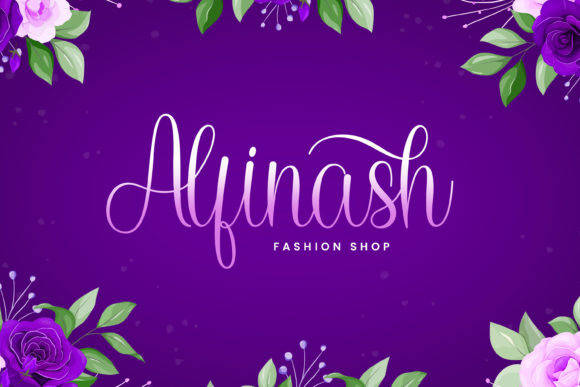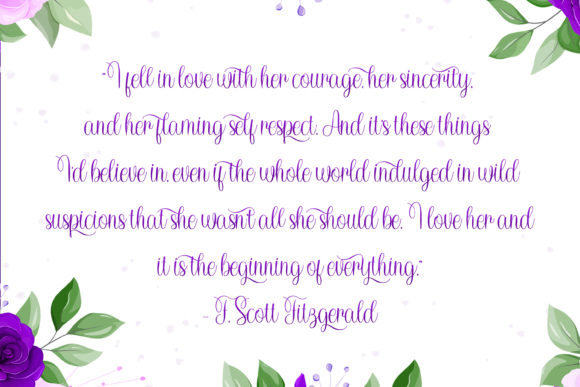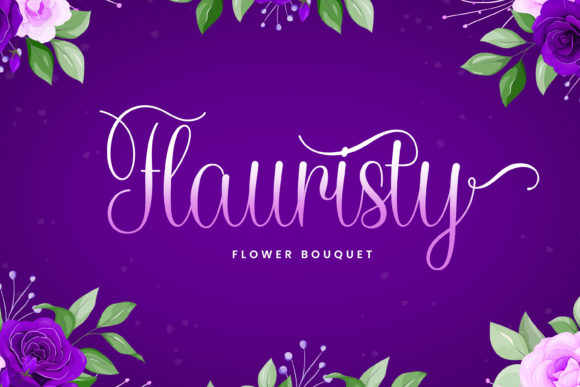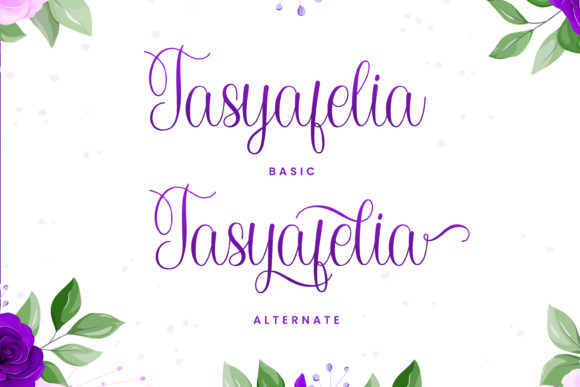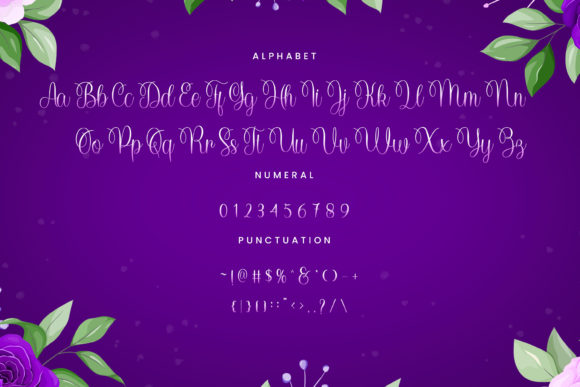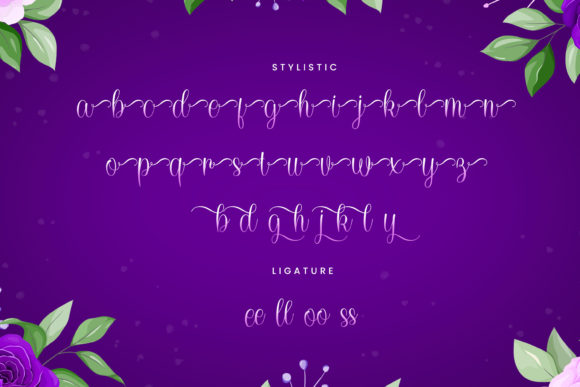
Introduction to Olaryna Font Font
Fonts play a crucial role in design, and the Olaryna Font font is a typeface that brings both character and versatility to any project. Whether you’re working on a branding project, a website, or a print design, the Olaryna Font font offers a unique style that can elevate your work.
Olaryna is a chic, refined script font that emanates sophistication and elegance.
Its stylish alternates and ligatures make this font the perfect match for any project .
Key Features of Olaryna Font Font
Why Choose Olaryna Font Font?
The Olaryna Font font is more than just a typeface – it’s a design tool that helps you communicate your message with style and clarity. Its unique character set and versatile design make it suitable for a wide range of applications, from elegant invitations to bold headlines.
With its carefully crafted letterforms and balanced proportions, the Olaryna Font font ensures readability and visual appeal across all mediums.
What makes Olaryna Font font special?
The Olaryna Font font stands out with its unique design, exceptional readability, and versatility across various design applications.